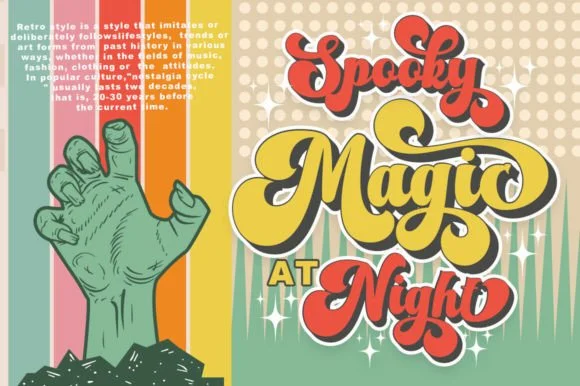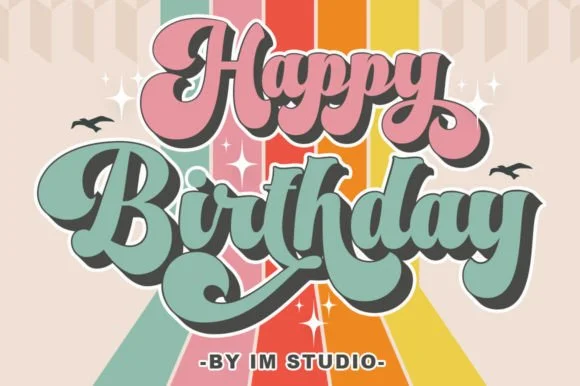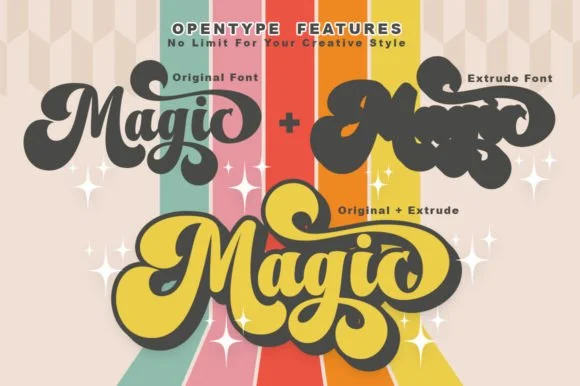
Magic Retro Font is energetically nostalgic and conveys a staggering showcase text style. Utilize this show text style to add that unique retro touch to any plan thought you can imagine!